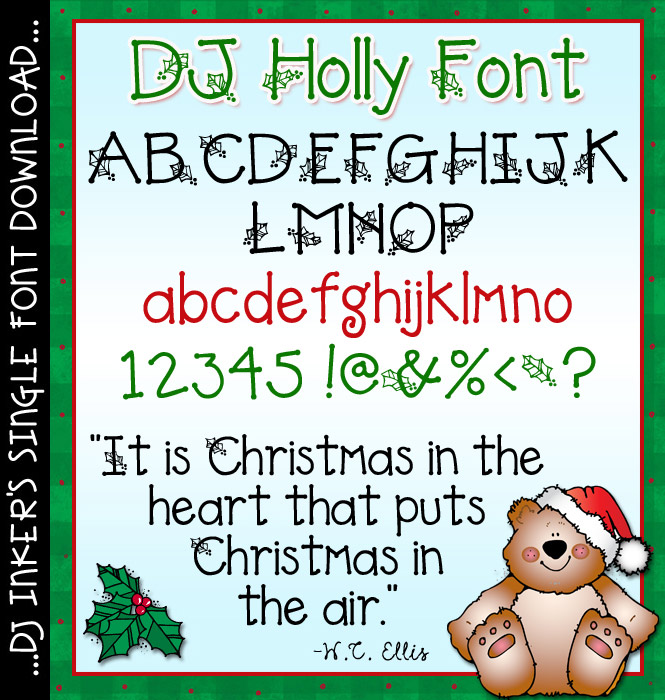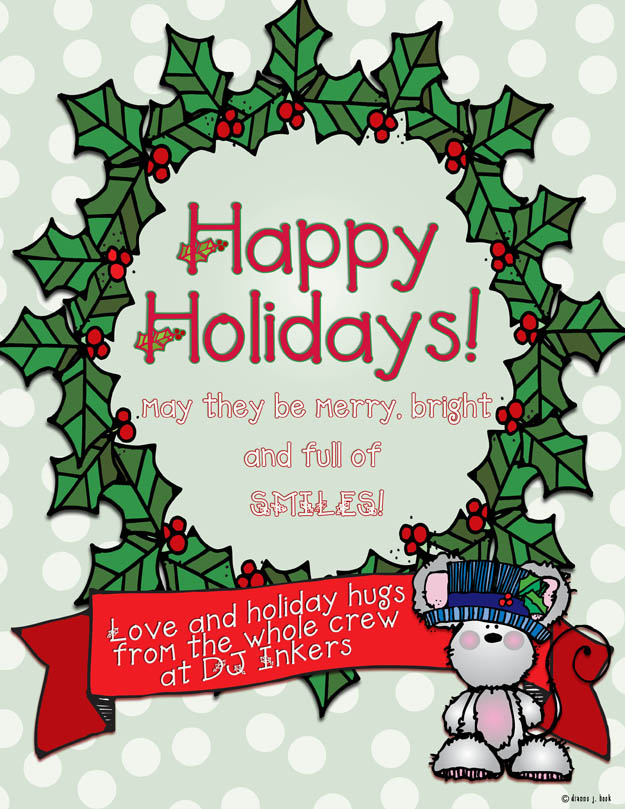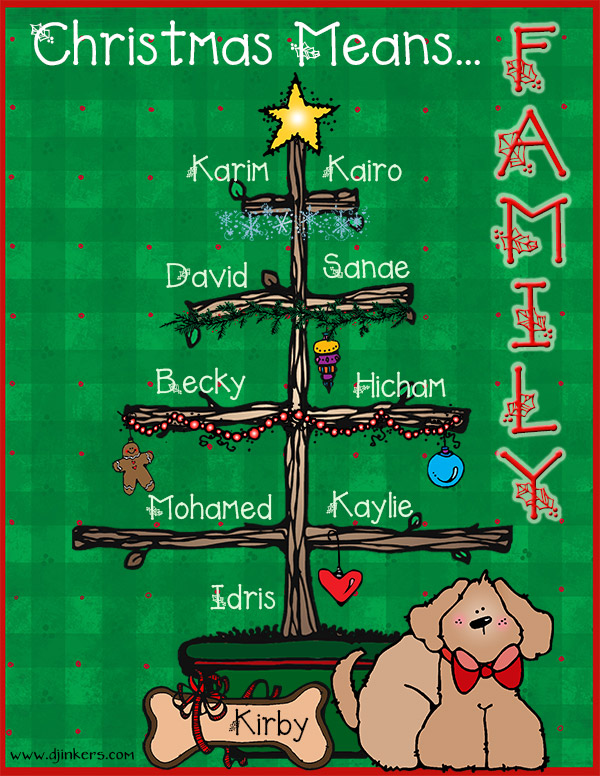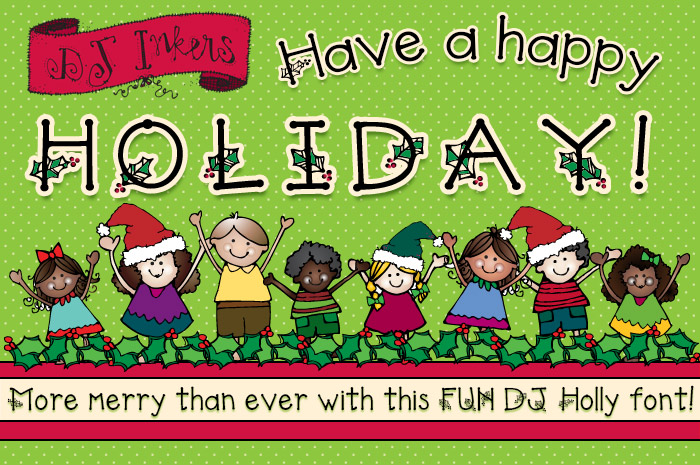
A festive font for holly-day smiles and Christmas fun by DJ Inkers
DJ Holly Font Download
You'll have a very merry holly-day with this whimsical font by DJ Inkers! DJ Holly will add a festive touch to your Christmas creations and holiday season projects this year! Perfect for headlines on your December newsletter, holiday programs, greeting cards, gift tags, seasonal monogramming and more. Unwrap a smile today!